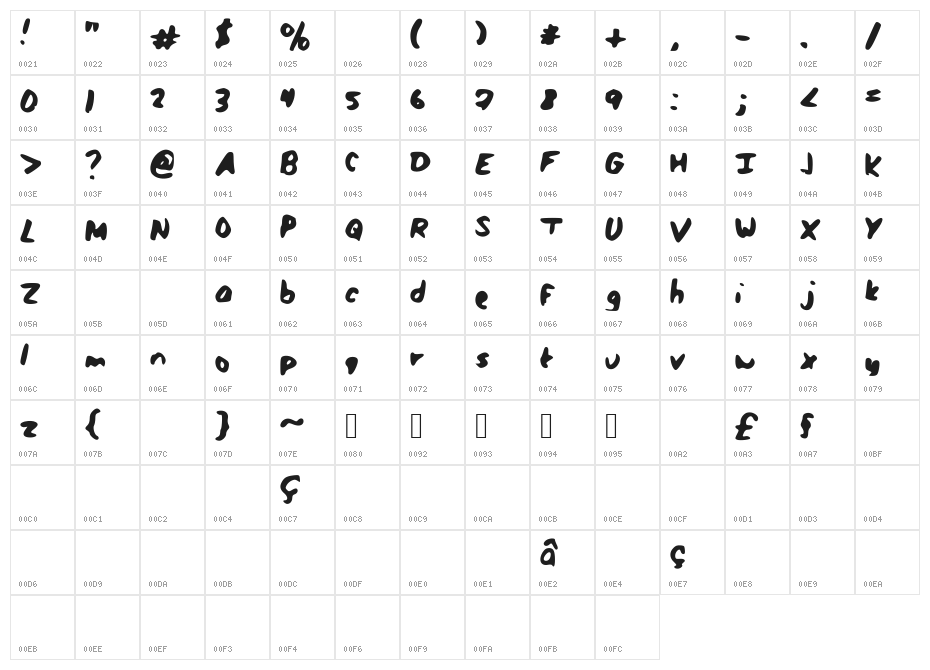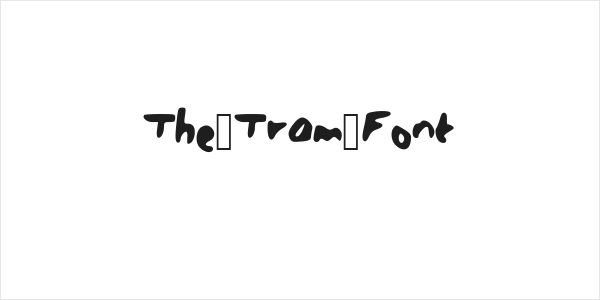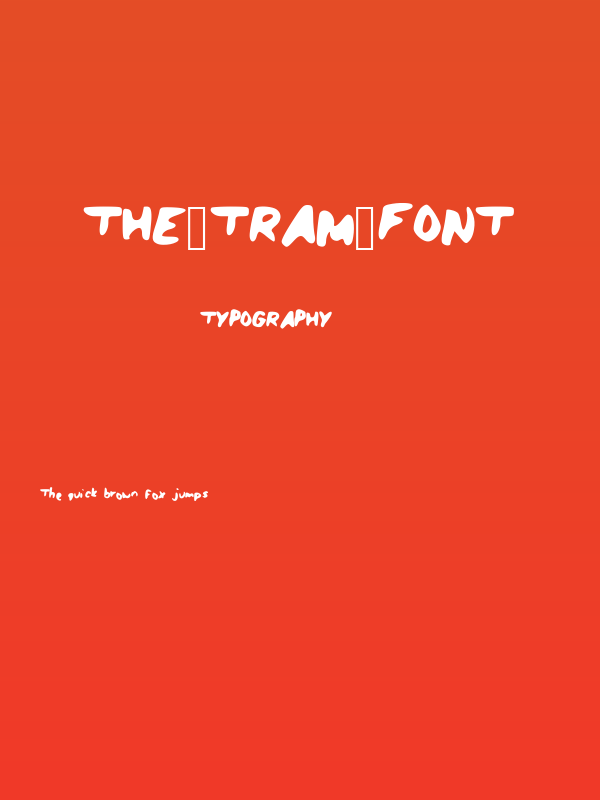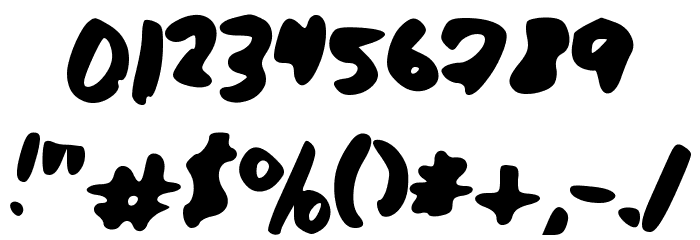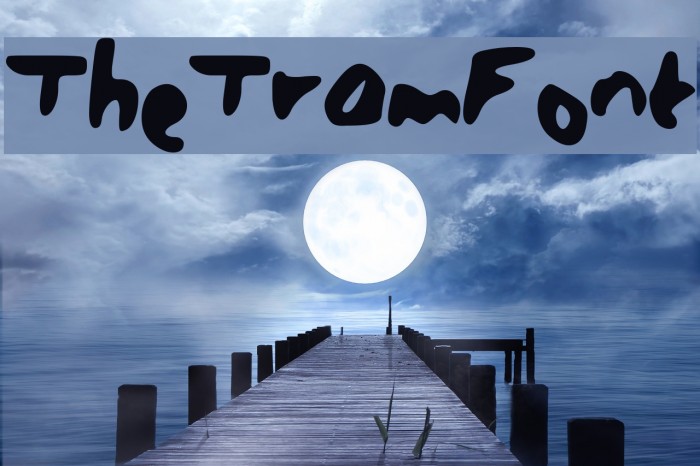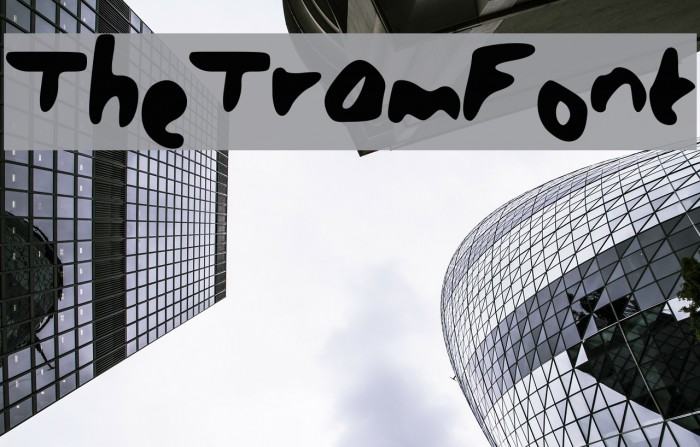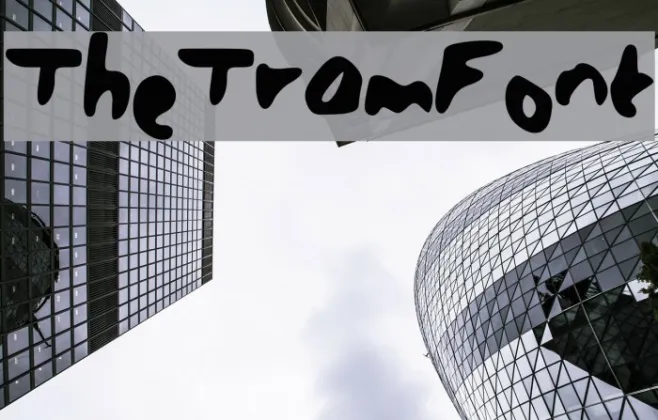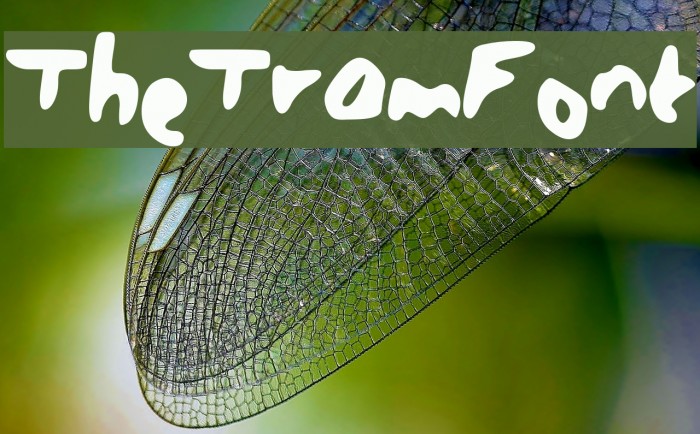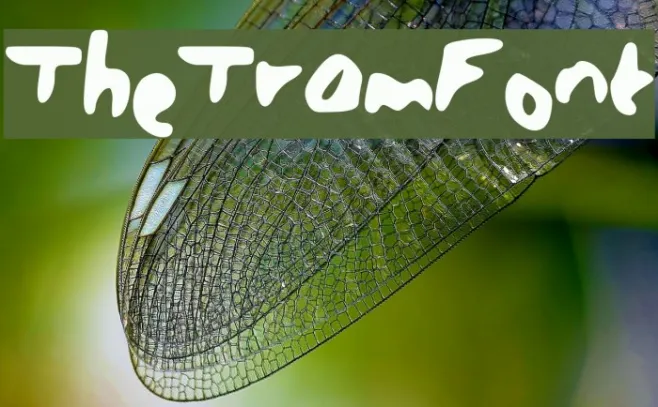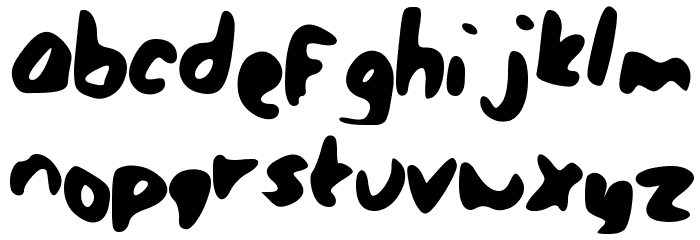
The_Tram_Font Font
The_Tram_Font Description
This font features a bold and playful style with a hand-drawn appearance. The characters are rounded and slightly irregular, giving it a whimsical and informal look. The uppercase and lowercase letters maintain a consistent style, with exaggerated curves and a fluid form. The numbers and special characters follow the same playful design, making the font suitable for creative and casual applications. Its unique style is eye-catching and adds a fun element to any design.